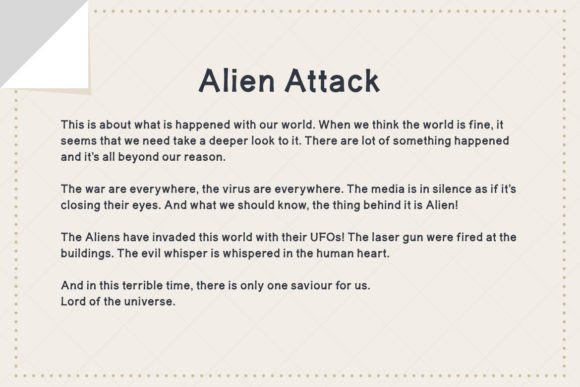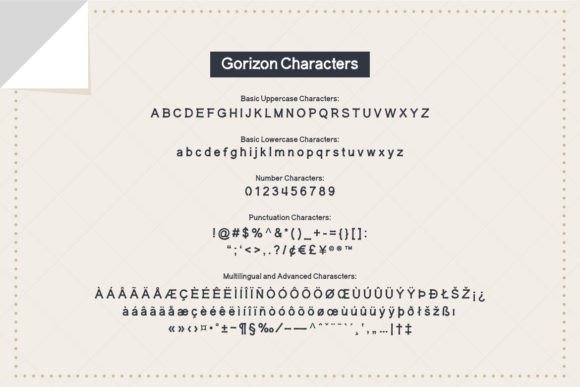
Gorizon Font: Elevate Your Craft with a Clean and Fresh Sans Serif Typeface
In the world of design, typography plays a crucial role in making your product stand out from the competition. A well-chosen font can elevate your craft, convey your brand’s message, and leave a lasting impression on your audience. If you’re a designer or crafter looking for a clean and fresh sans serif font, look no further than Gorizon Font. In this article, we’ll explore the features and benefits of Gorizon Font, and how it can enhance your design work with little effort.
What is Gorizon Font?
Gorizon Font is a modern sans serif font designed to provide a clean and fresh aesthetic to your design projects. Its sleek lines, balanced proportions, and subtle curves make it an excellent choice for a wide range of applications, from digital media to print materials. Whether you’re working on a logo, brochure, website, or social media graphics, Gorizon Font is versatile enough to adapt to any design style.
Key Features of Gorizon Font
- Clean and Fresh Design: Gorizon Font boasts a clean and fresh design that will give your projects a modern and sophisticated look.
- Sans Serif Style: The font’s sans serif style makes it highly legible, even at small sizes, ensuring that your message is conveyed clearly.
- Highly Versatile: Gorizon Font is suitable for a wide range of design applications, from headings and titles to body text and captions.
- Easily Readable: The font’s balanced proportions and subtle curves make it easy to read, reducing eye strain and fatigue.
Benefits of Using Gorizon Font
So, why choose Gorizon Font for your design projects? Here are just a few benefits you can expect:
- Enhance Your Craft: With Gorizon Font, you can elevate your design work and create visually stunning projects that showcase your skills.
- Stand Out from the Competition: The font’s unique design and versatility will help your projects stand out in a crowded market, grabbing the attention of your audience.
- Professional Results: With Gorizon Font, you can achieve professional-looking results, even if you’re not a seasoned designer.
How to Use Gorizon Font in Your Design Projects
- Use it for Headings and Titles: Gorizon Font is perfect for headings and titles, adding a touch of modernity and sophistication to your design.
In conclusion, Gorizon Font is an excellent choice for designers and crafters looking for a clean and fresh sans serif font. Its versatility, readability, and modern design make it an ideal choice for a wide range of design applications. With Gorizon Font, you can elevate your craft, stand out from the competition, and achieve professional-looking results with little effort. So why wait? Download Gorizon Font today and take your design work to the next level!